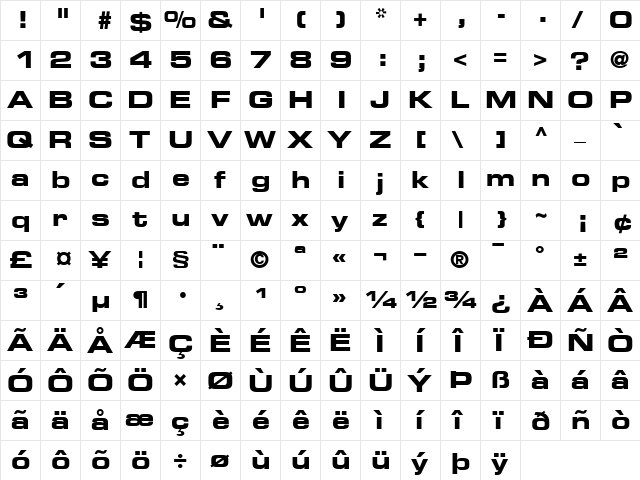
Eurostile#2-Extended Bold Font Preview
Eurostile#2-Extended Bold
Eurostile#2-Extended Bold Font Details
Design Context for Eurostile#2-Extended Typeface
Eurostile#2-Extended takes a measured approach to typography — its balanced proportions and neutral character make it a reliable workhorse for both digital and print work. Its bold stroke weight gives it real presence on the page.